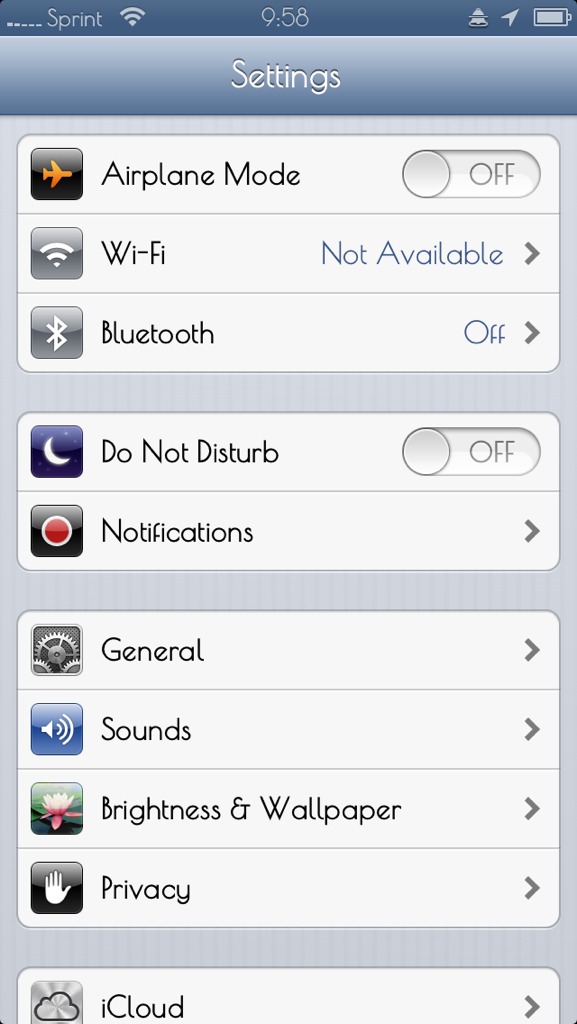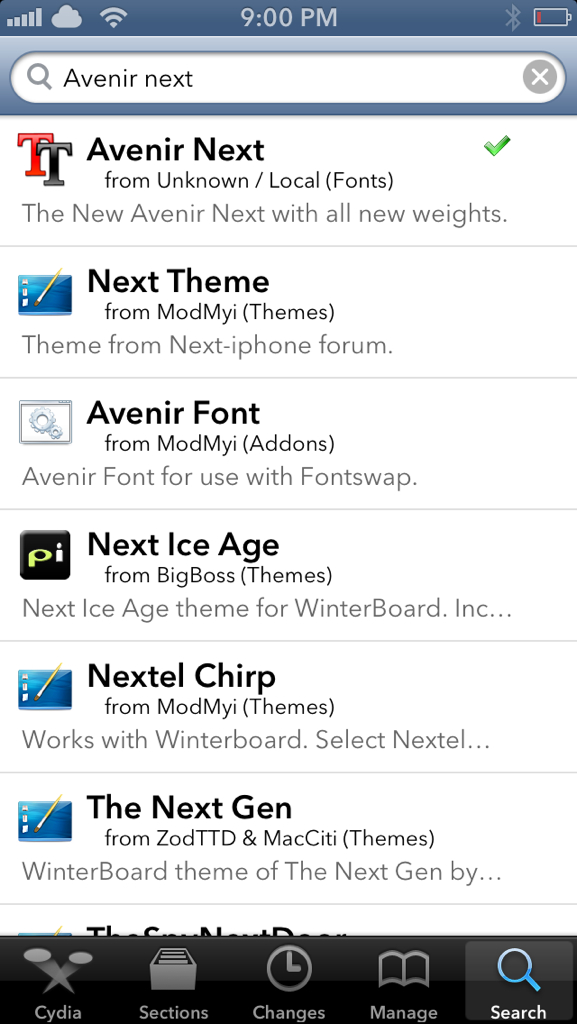
Anyhow I'm using a font called Sony Sketch EF Regular. I like it because it's cool/futuristic looking and not an eye-sore like many other unique fonts.
Wow... awesome status bar. What is it?
The font is called, "Coamei".
Can someone also PM me about how can I get avenir next font please? 🙂
I just searched cydia last week and it was there (just all the default repos, none I added that I know of). But when I search now, it says unknown/local font. Maybe it was taken down?
Like others said, roboto is good too (I came from a nexus 4) but not as good as avenir next IMO.
anyway, if you end up using the font, i hope you enjoy using it as much as i did 🙂
I just searched cydia last week and it was there (just all the default repos, none I added that I know of). But when I search now, it says unknown/local font. Maybe it was taken down?
Like others said, roboto is good too (I came from a nexus 4) but not as good as avenir next IMO.
Does anyone know of an "all caps" font. The "lower" case is just smaller caps. I think Neutraface was like this.
If you find one please post it because I've looked for a clean, easy to read version of what you are looking for. I found one a while back that was all caps with the lower case just mini all cap letters, but it was really slanted and hard to read. I'll do some research and see if I can find anything good.
Try the Cydia package "iMatte v5 Fonts" with BytaFont
Use the digital font